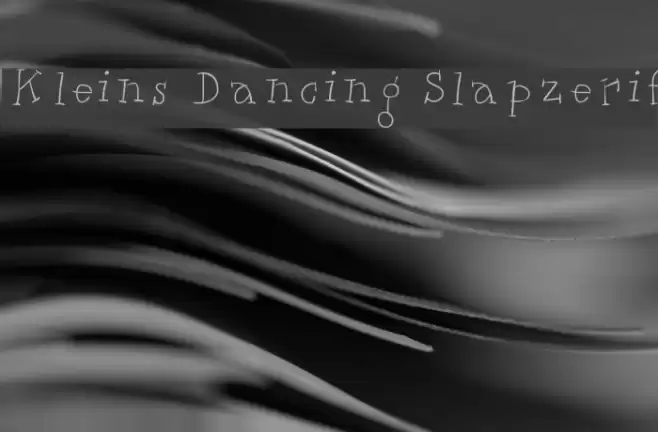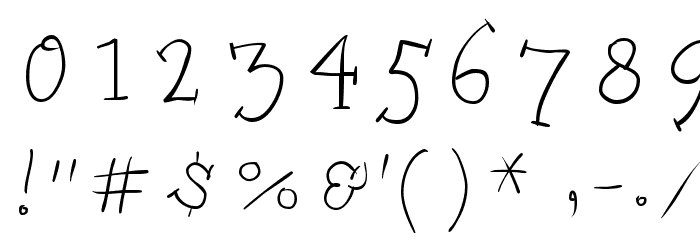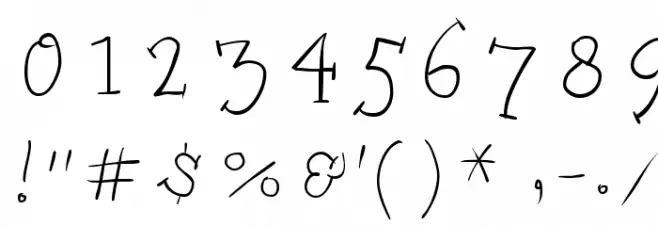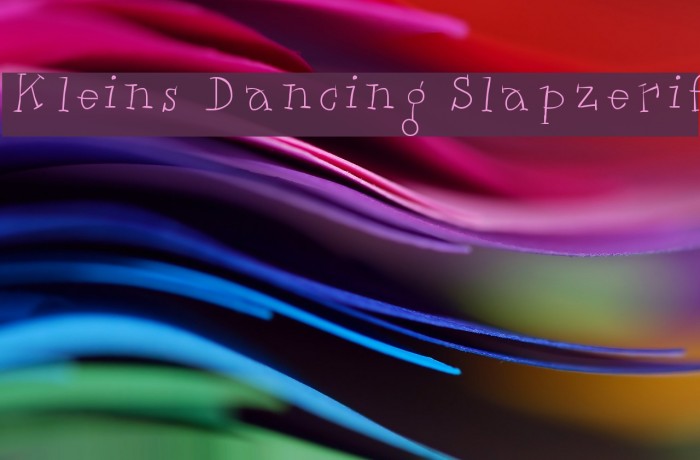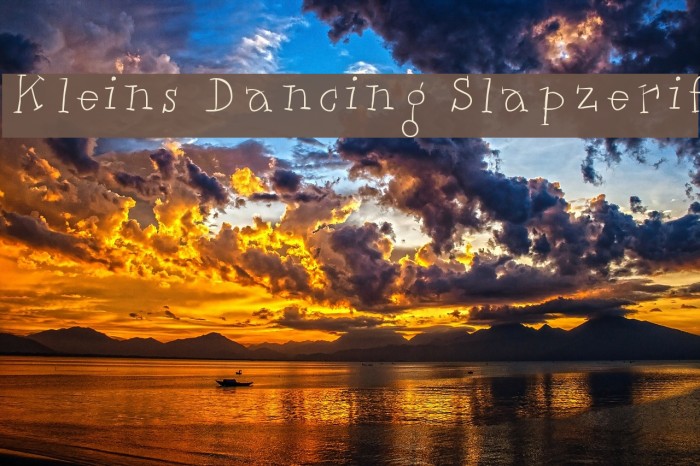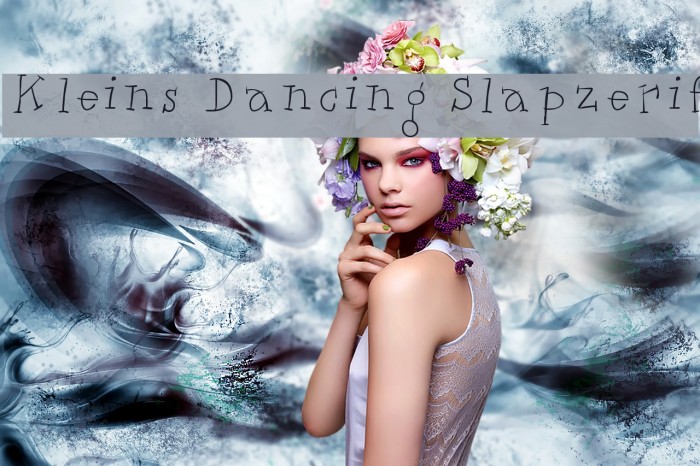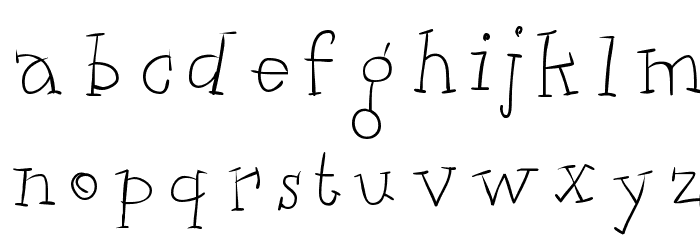
Kleins Dancing Slapzerif Font
Kleins Dancing Slapzerif Description
This font exhibits a playful and whimsical style, characterized by its irregular and dynamic letterforms. Each character appears to dance across the baseline, with varying heights and slanted angles that create a lively and energetic appearance. The strokes are thin and slightly uneven, adding to the casual and informal feel. The font includes both uppercase and lowercase letters, numerals, and a range of special characters, all maintaining the same quirky aesthetic. The overall design is reminiscent of hand-drawn or doodle-like lettering, making it suitable for creative and fun projects.
A playful, hand-drawn style font with irregular, dancing letterforms from Uncategorized fonts.
- Overall Style: Whimsical